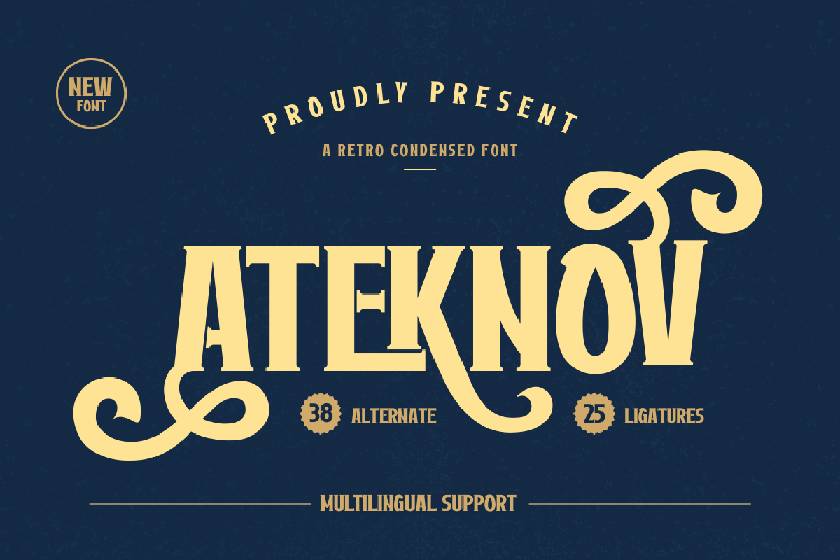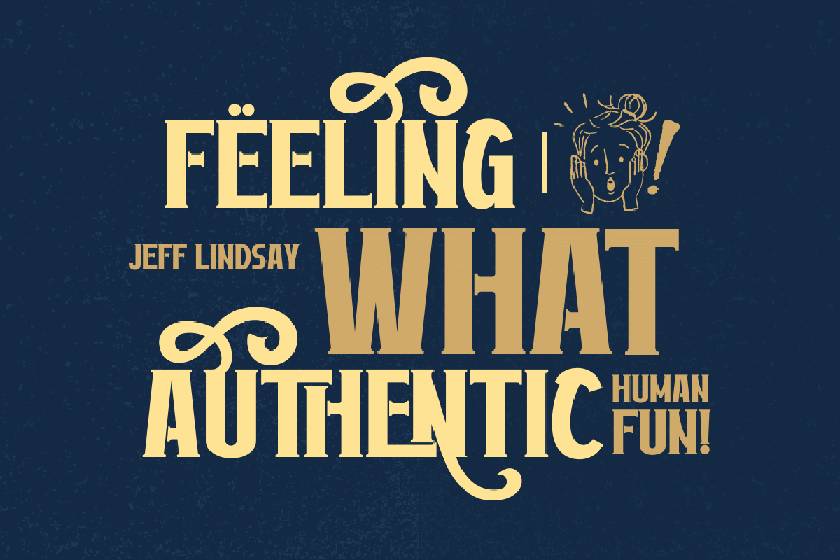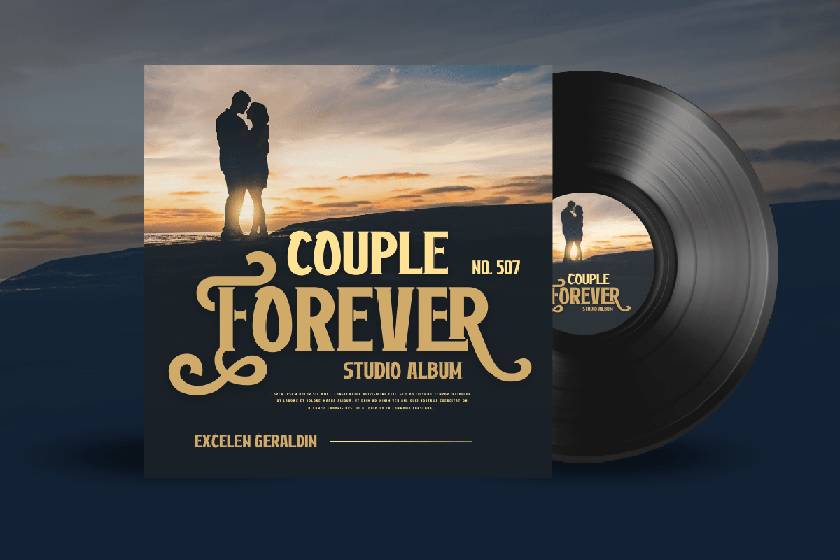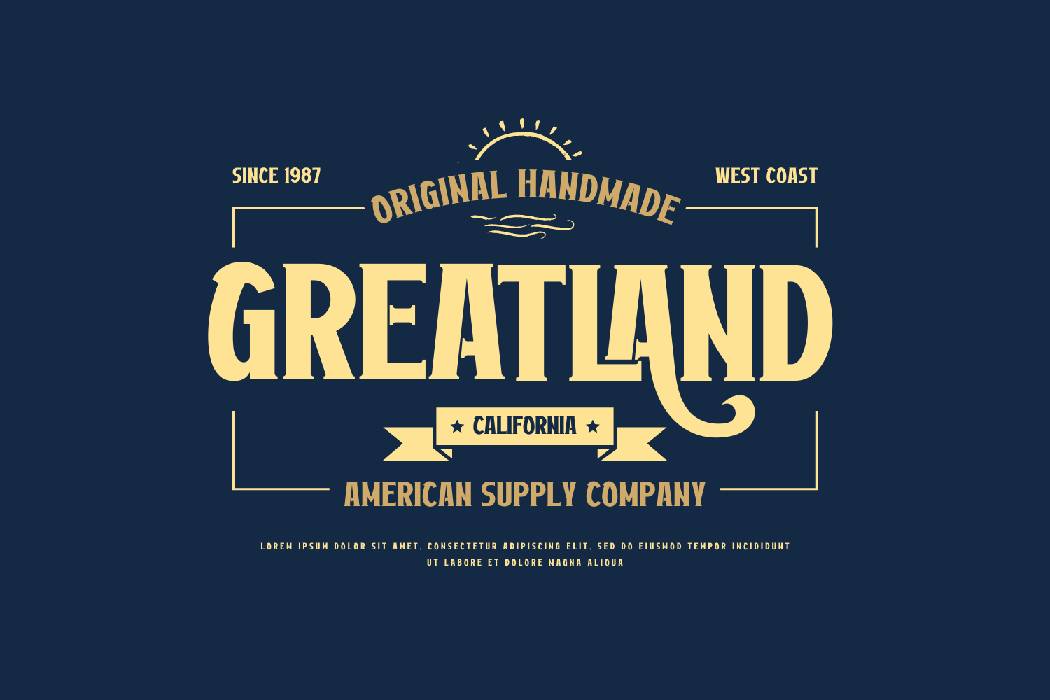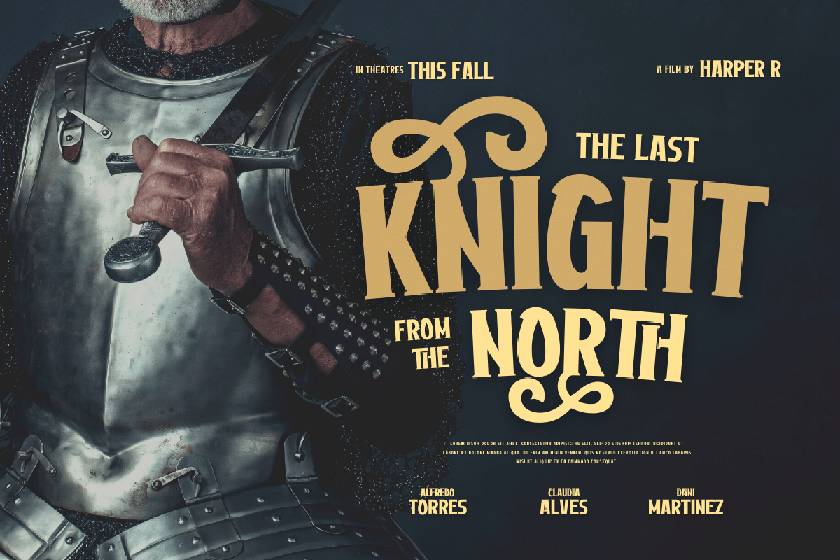
Ateknov is a bold, condensed serif font with a vintage, strong personality, featuring high contrast between thick and thin strokes and distinctive sharp serifs. Its tall, narrow letterforms with a mix of single and double-story characters give it a striking, authoritative look, making it ideal for headlines, posters, and branding that require a powerful, classic yet modern feel. This font works well where impactful display typography is needed, blending traditional serif elegance with a contemporary edge.
Ateknov Font
About Ateknov Font